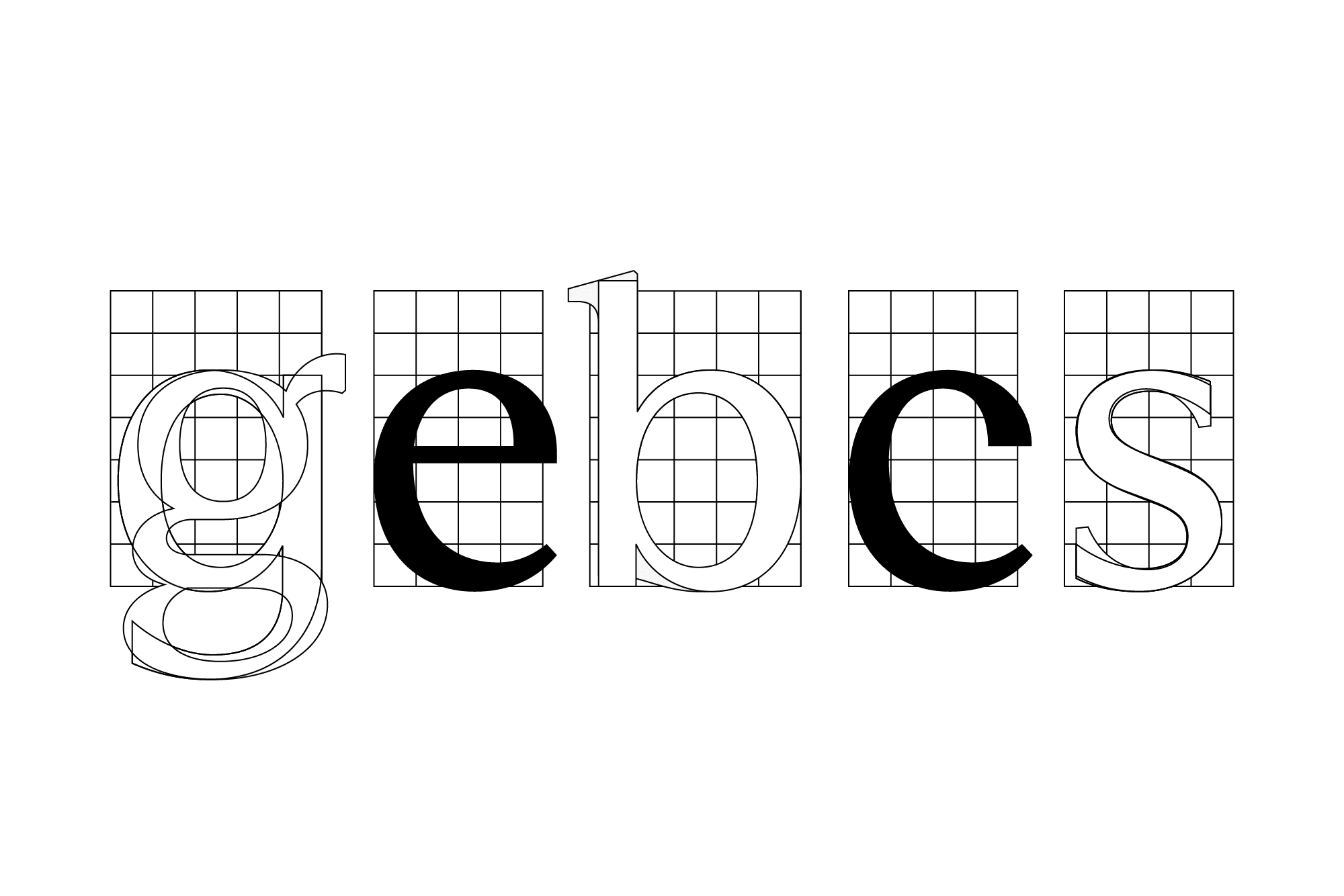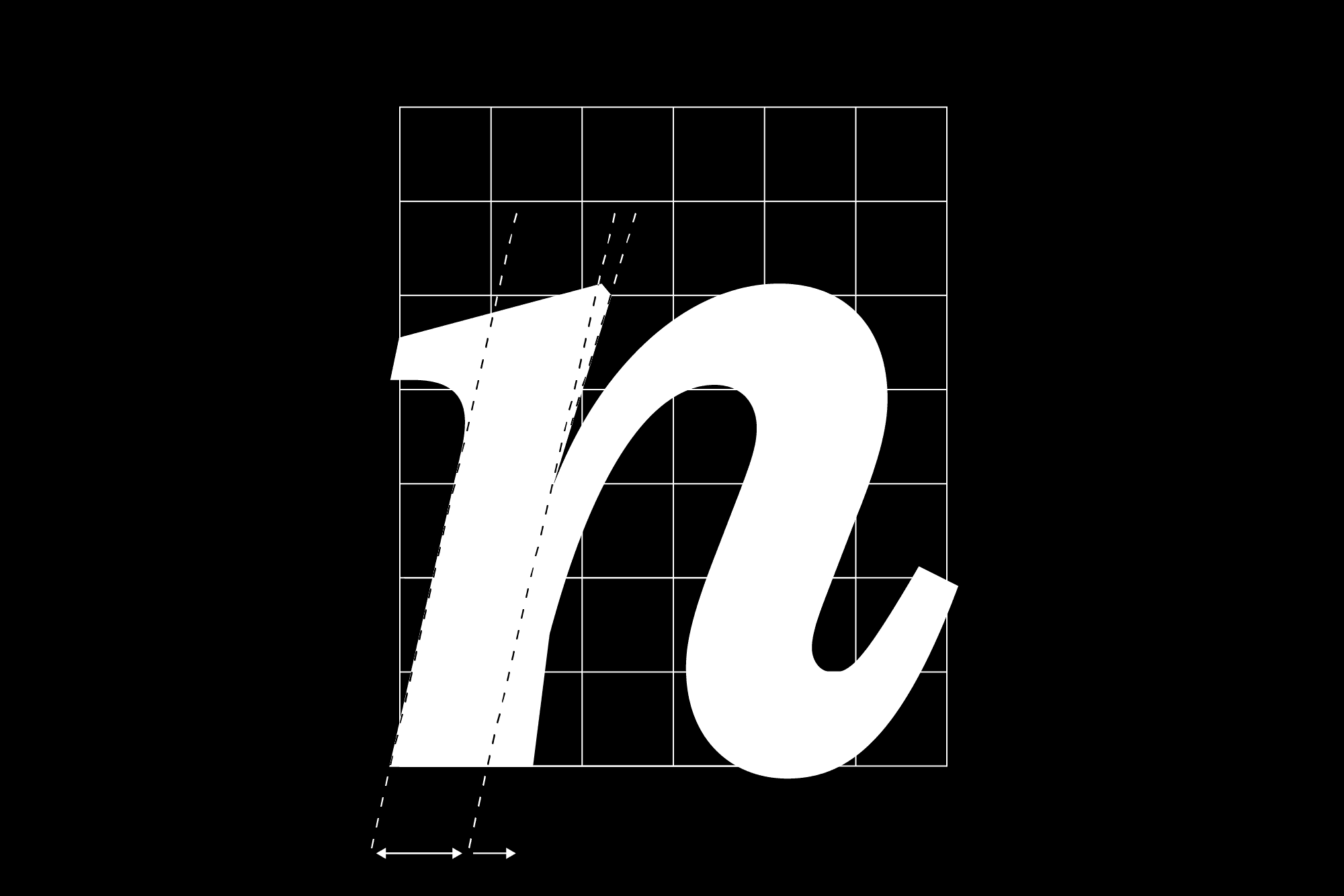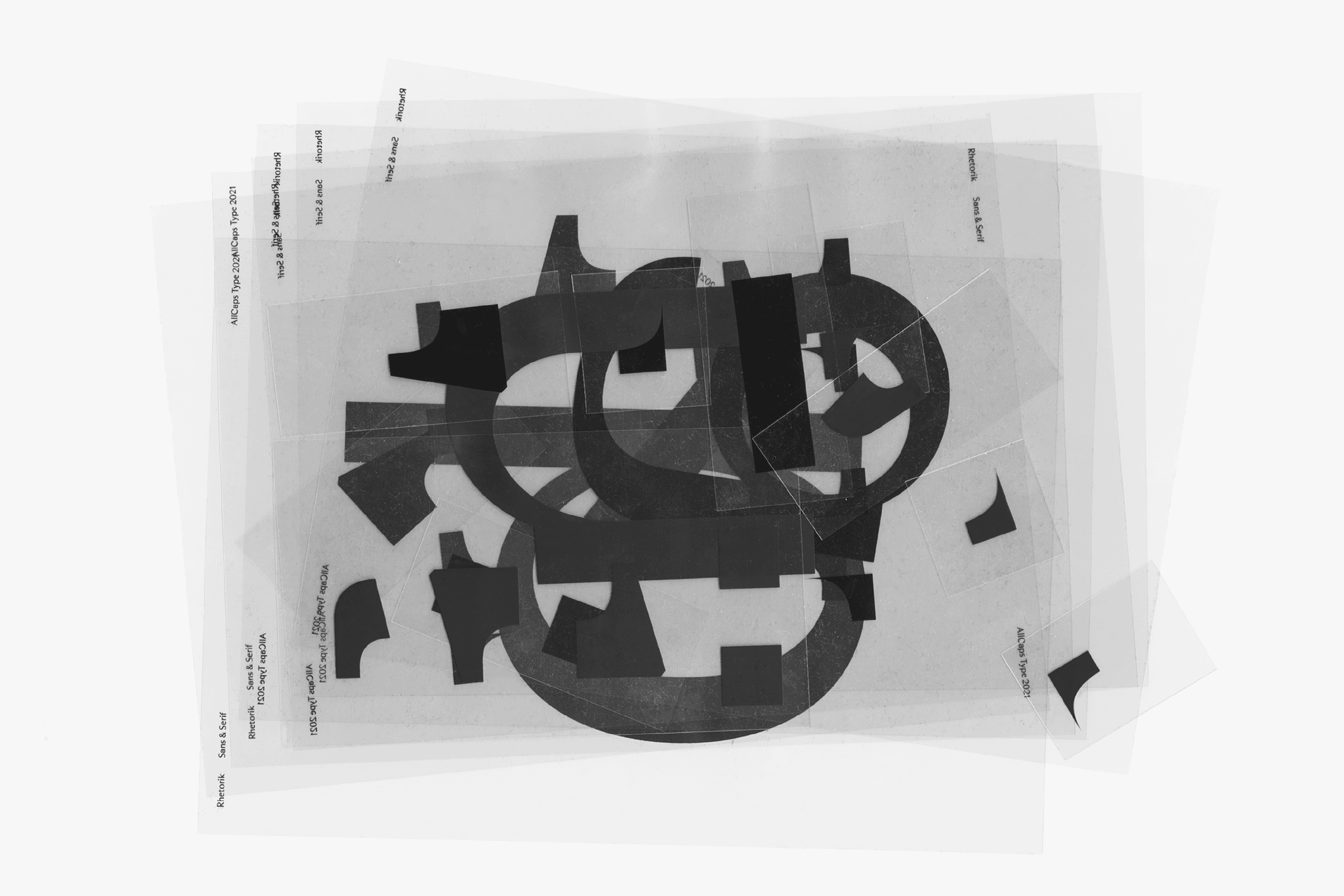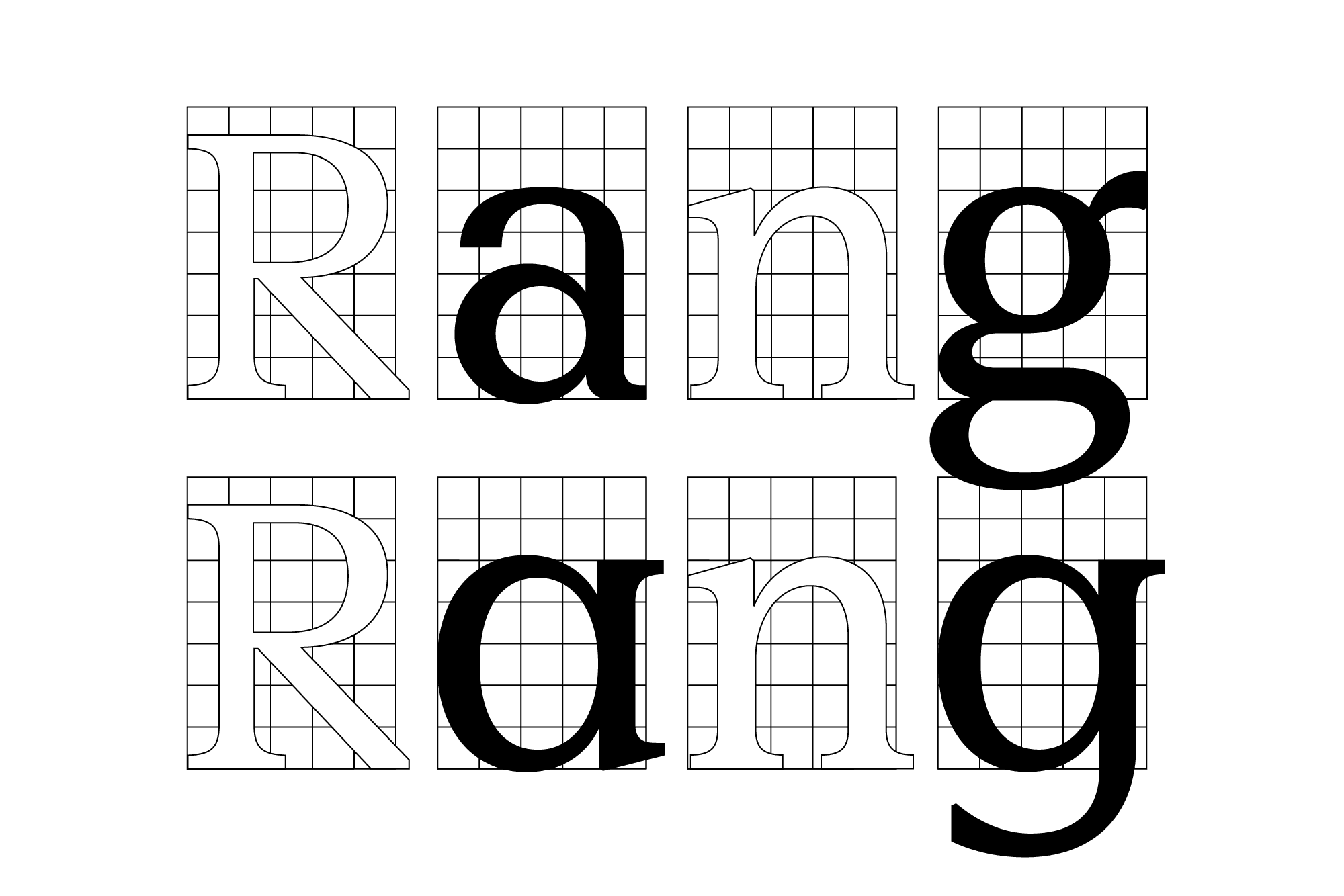
A stark white page with two words introduces the chapter: »rhetorik« and ‘Rhetoric’ are the sections of Otl Aicher’s 1988 book Typographie where he ruminates on how the same idea can be formed in multiple ways. This condition is not unique to a specific language, but instead is universal. The specific syntax one uses becomes important to consider, as the way in which information is presented determines the success of its communication.¹ Today, Rhetorik is a versatile family with a spectrum of styles which allow it to excel both in text typesetting as well as display usage, with perhaps its most promising potential application being complex identity projects. Stylistic sets of text and display versions keep historical aspects alive (a postmodern Aicher ‘b’ for instance) while also offering flexibility with simplified alternates. Rhetorik challenges the definition of a type family, combining both sans and serif styles in a manner unlike its predecessors. This superfamily was built on a modular, component-based system in order to simplify construction and achieve consistency. The letterforms were then refined through optical correction in each cut. In this way, Rhetorik fulfils the dream of today’s art director; a simplified, contemporary reinvention of Aicher’s Rotis (1988).
‘Family’ becomes an interesting lens through which to view Aicher’s legacy, as throughout his career he valued creating networks to stimulate growth.² It is fitting that Rhetorik also developed through a diverse lineage of references, after a thorough study of many important figures within German design. It is through Walter Tiemann’s font Orpheus³ where Rhetorik formally starts. An interpretation of Orpheus was developed through an experimental process where the contrast was increased, and serifs were added, modified and removed. The result bore a resemblance to Aicher’s Rotis, planting the seed to create a family with both a sans and serif style – one which would, in a unique way, preserve some of the character present in Orpheus. Through this process an idea of ‘constructed calligraphy’ was often referenced, with the presence of the pen in the forms, occasionally supplemented with constructed drawings.
This methodology continues in the italic cuts. On the ‘constructed’ side, the sans italic has been created by mechanical slanting, and fine-tuned through optical correction. In contrast, the serif style features a true italic, a ‘chancery’ hand style – almost completely calligraphic, while at the same time conveying a contemporary feeling through its digital formation. These moments are particularly present in the ‘n’ ‘v’ and ‘k’ which relay both a sense of writing and construction within the same letter. Emil Rudolf Weiß’s Weiß-Antiqua (1924) also served as another reference from German type design history, providing inspiration for solving certain challenges during the development of the italic cuts.
Aicher, inspired by other families such as Univers and Times, did not necessarily achieve the results he set out for.⁴ A common perception of Rotis is that it as an ‘art director’s typeface,’ working well in architectural and branding contexts, but overly-stylised for other uses. Rhetorik creates something new through meticulous editing and synthesising of all of these points in history. The overall volume has been reduced from its sources in order to yield a functional type system while maintaining the concept of marrying a sans and a serif. Two styles have been brought together, but perhaps (as in an actual marriage) there is occasionally still some tension, which gives the family a distinct attitude. It is committed to the long haul, with many stylistic decisions resisting the flow of trends in type design today.
2 Aicher’s first design commissions were lecture posters for Ulmer Kreis (Ulm Circle of Friends) which he established with close associates to revitalise his post-war town. Later, together with Max Bill, he founded the seminal Hochschule für Gestaltung Ulml, and towards the end of his life established the Rotis Institut für analoge Studien.
3 Giovanni Francesco Cresi worked as a calligrapher for the Vatican in Rome in the 16th century, also publishing his own work, writing models and teaching scribes at the Sistine Chapel. One of Cresi’s calligraphic models was later interpreted by Walter Tiemann and developed into Orpheus in 1962. Tiemann was an enormously influential figure within German design, releasing his work through Klingspor Foundry and teaching at Staatliche Akademie für Graphische Künste in Leipzig, where Jan Tschichold was one of his students.
4 Aicher’s conception of the modern movement formed an ideology so strong that perhaps it blinded his process. His 1991 book, Die Welt als Entwurf (The World as Design) preached that there was no place in the world for beautiful artworks which do not have any function. For anyone who has read this book, the irony is quite present – the type it was set in, Rotis, seems to directly oppose those values, appearing to be more about its form than its function, sacrificing legibility while undoubtedly flaunting a certain style.
Classification: Humanist Serif
Single storey a (ss01)
Analog
Single storey g (ss02)
Logic